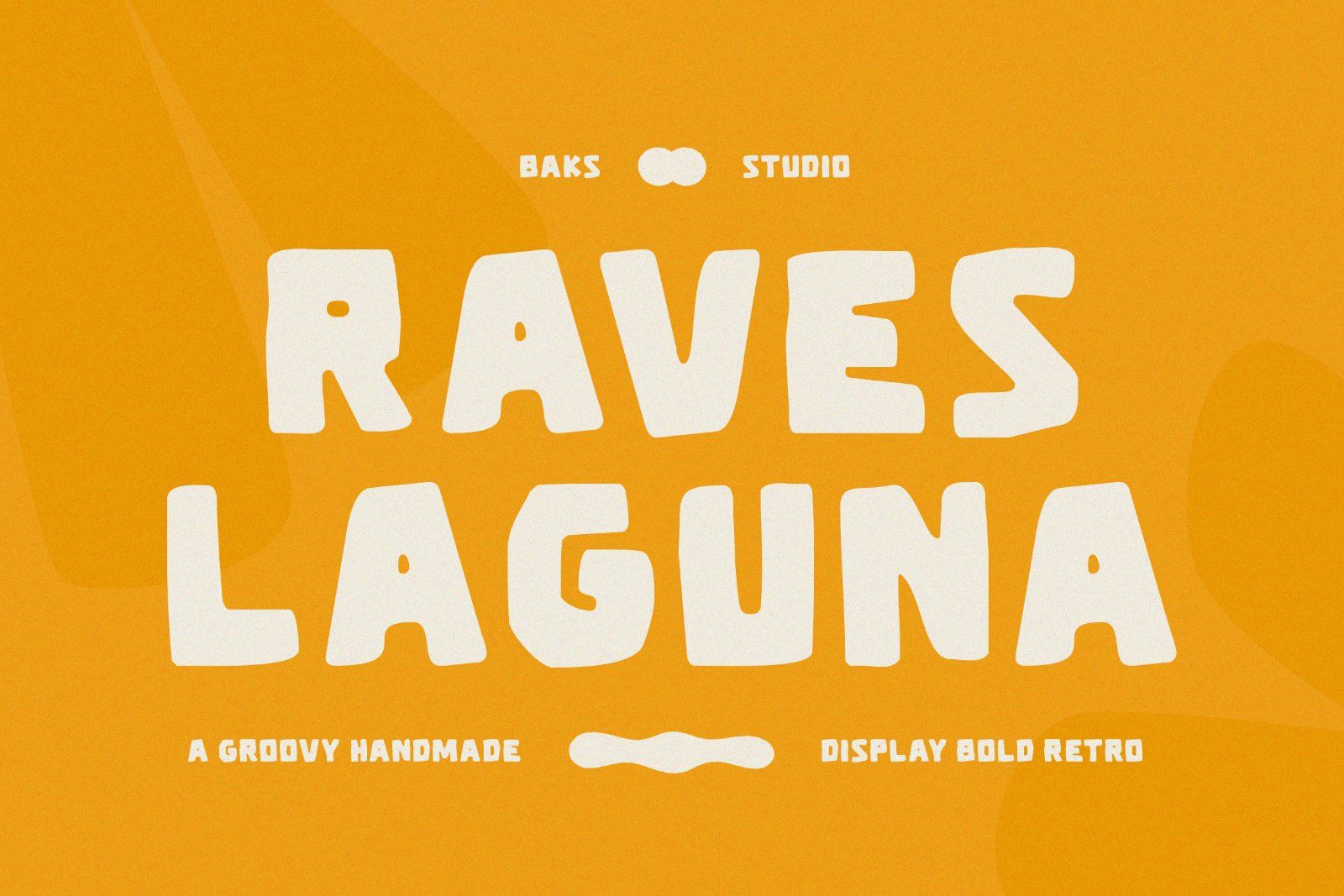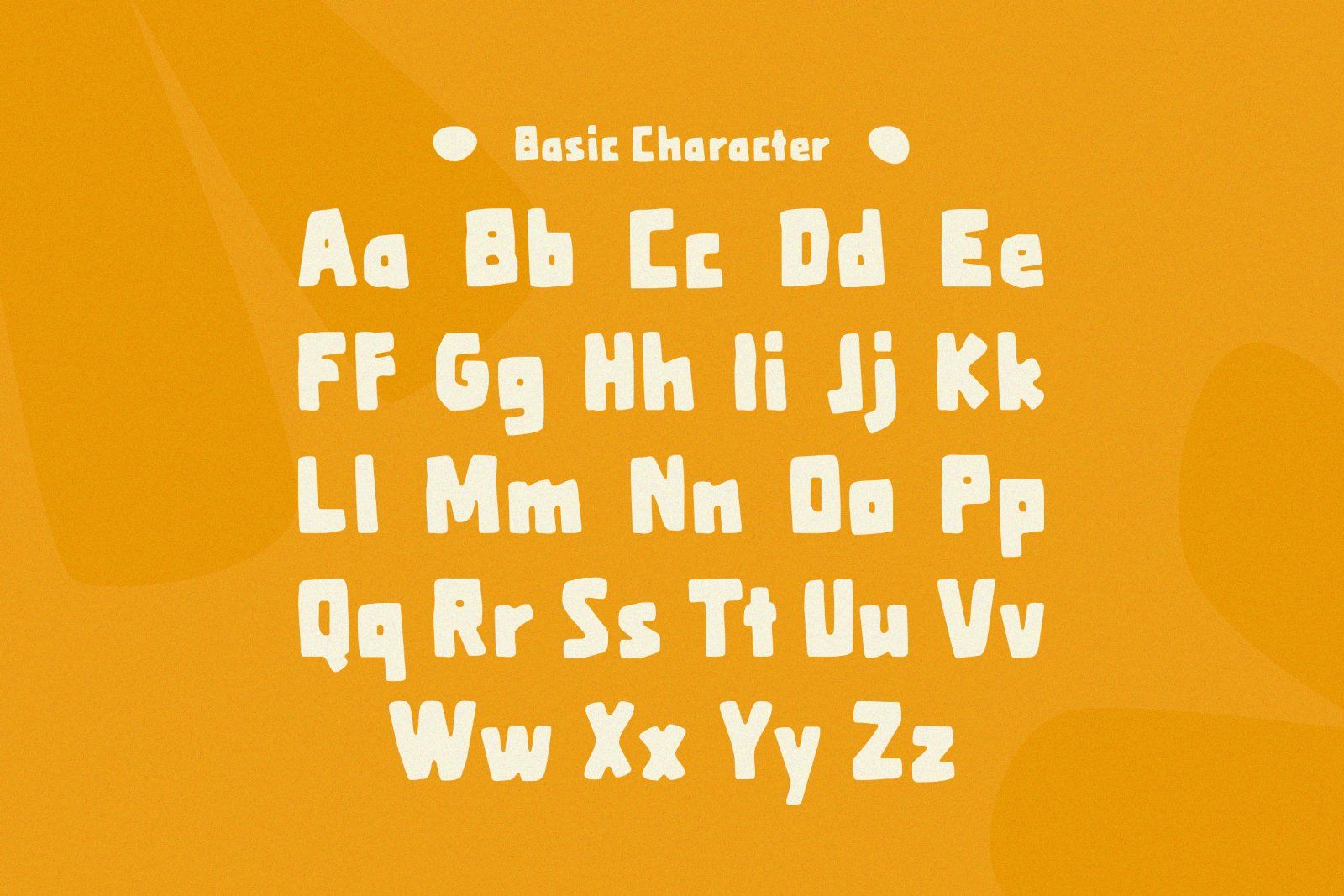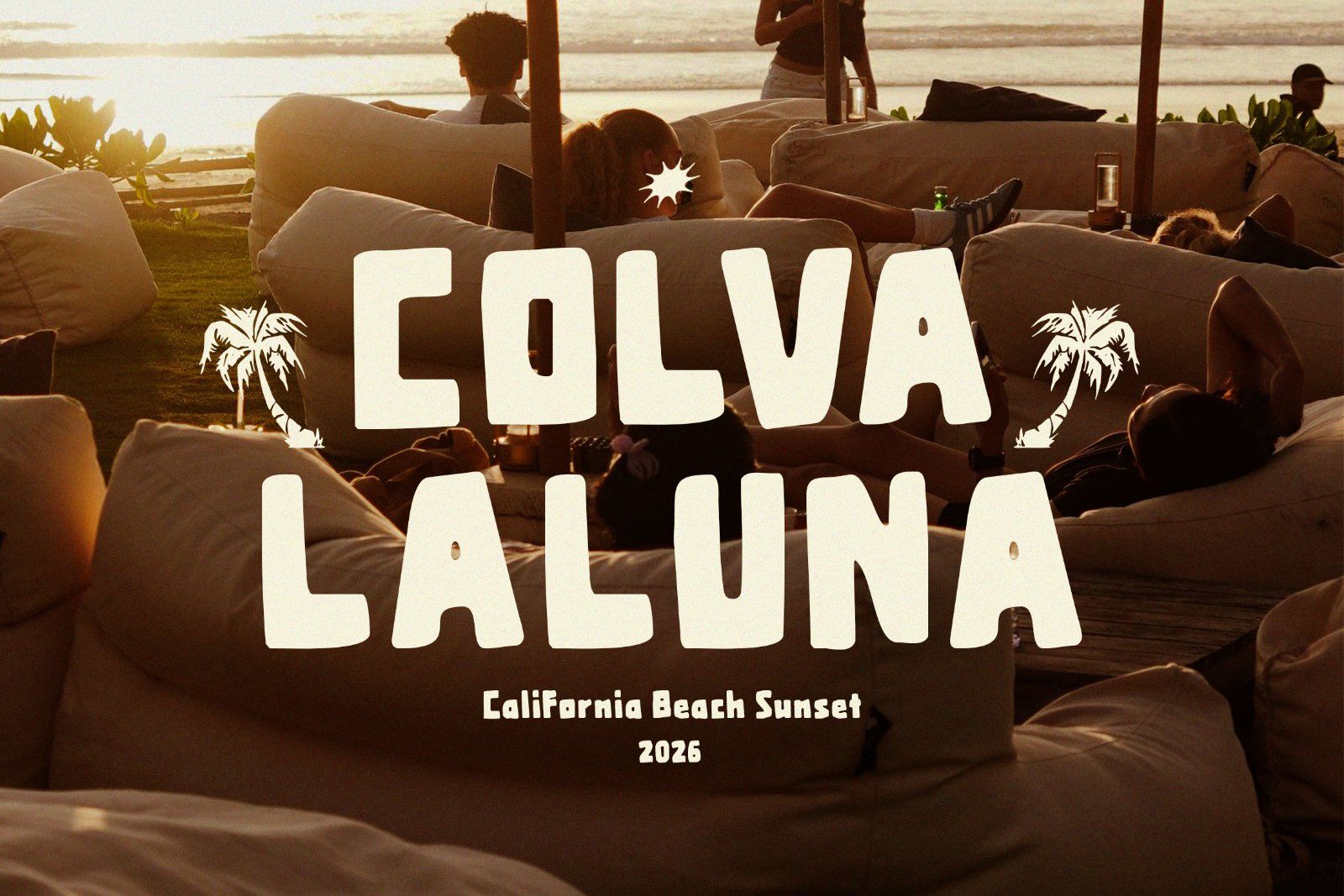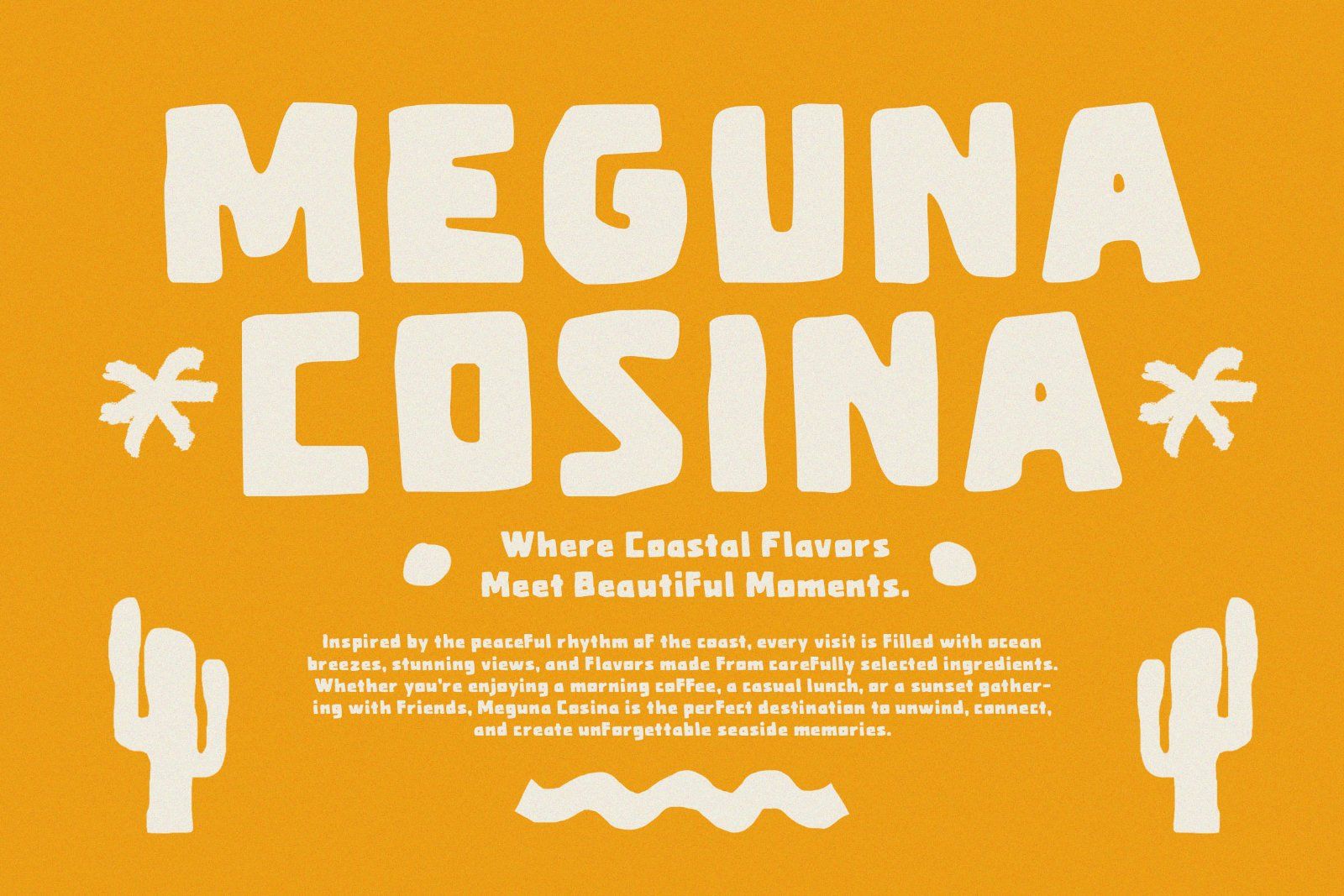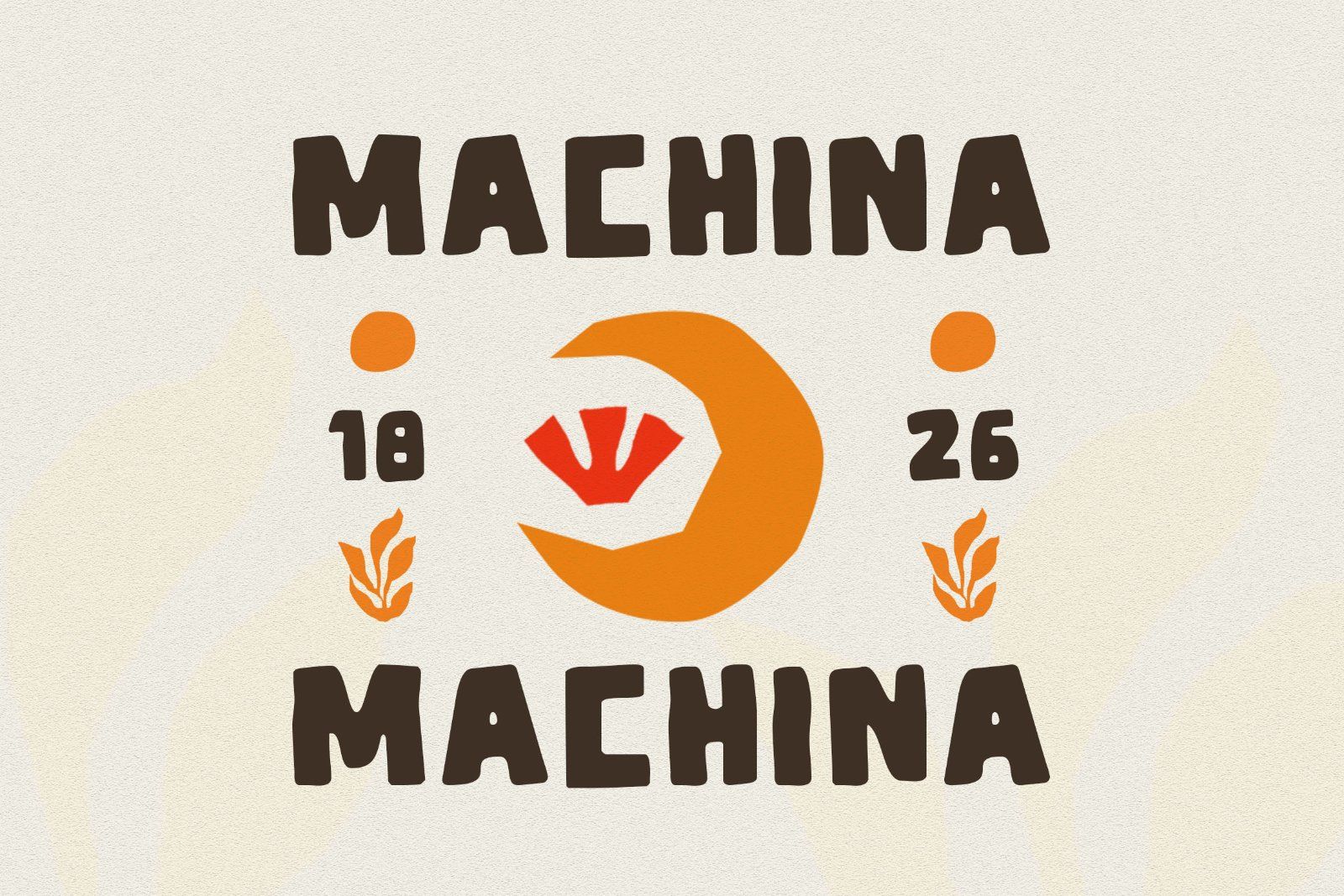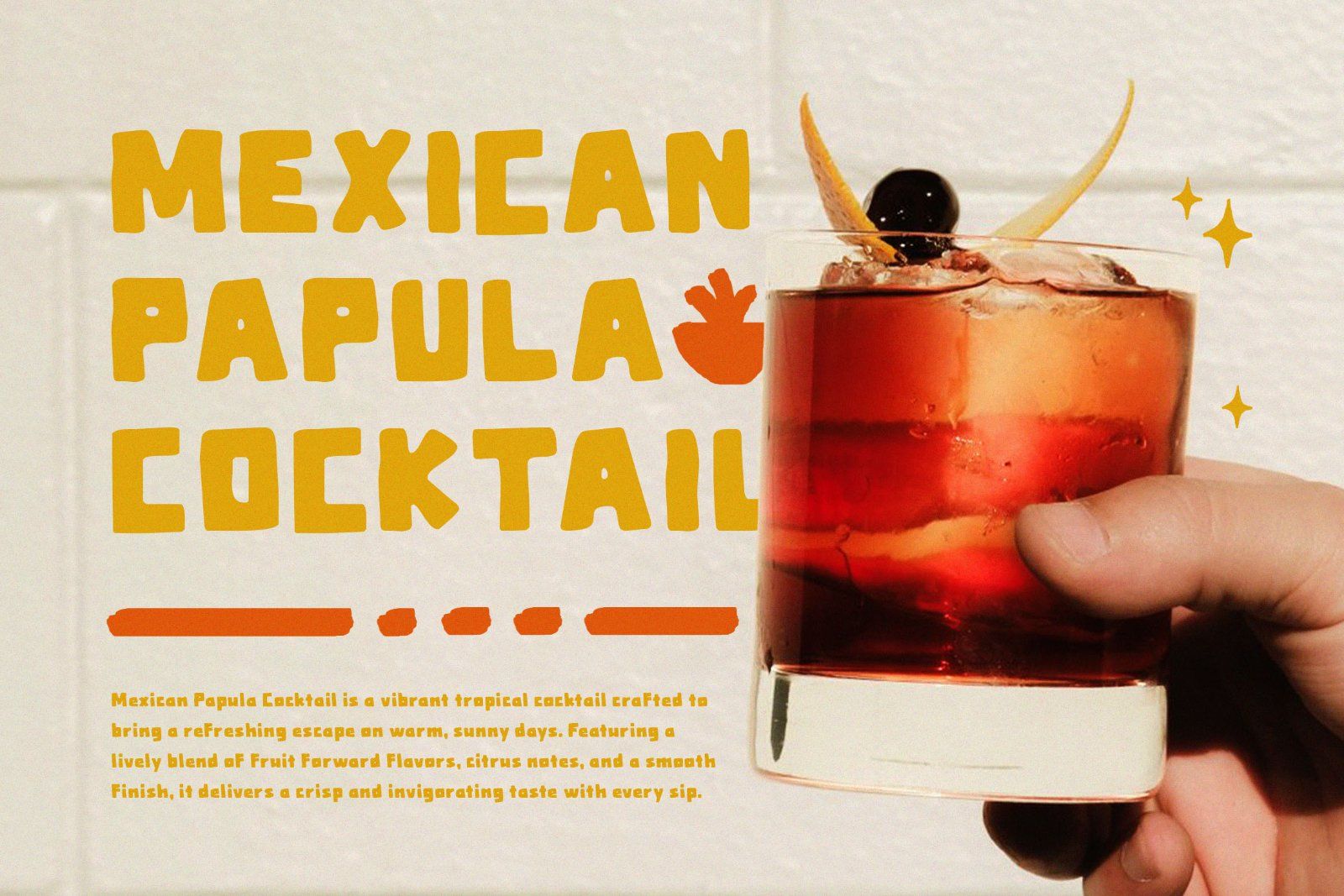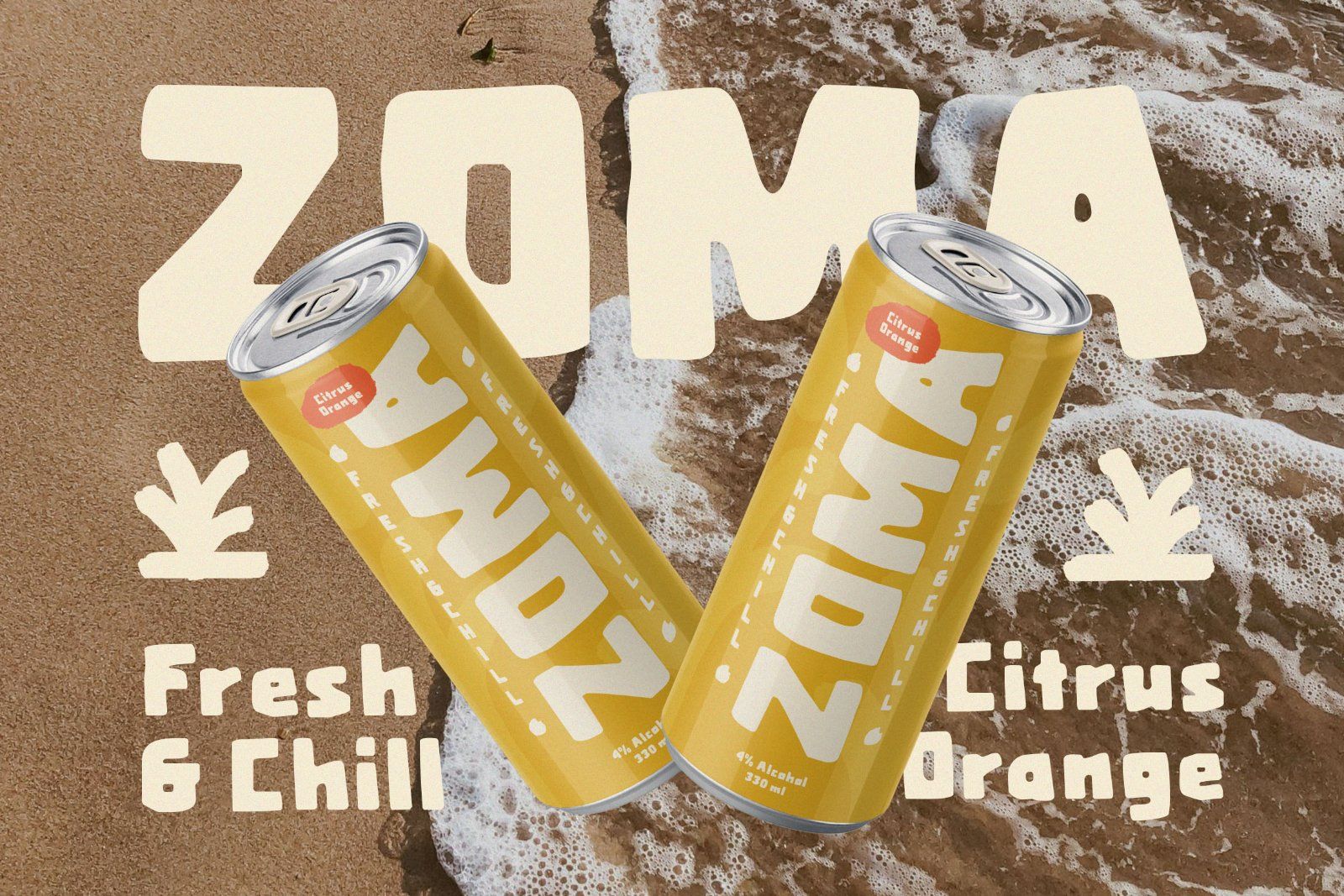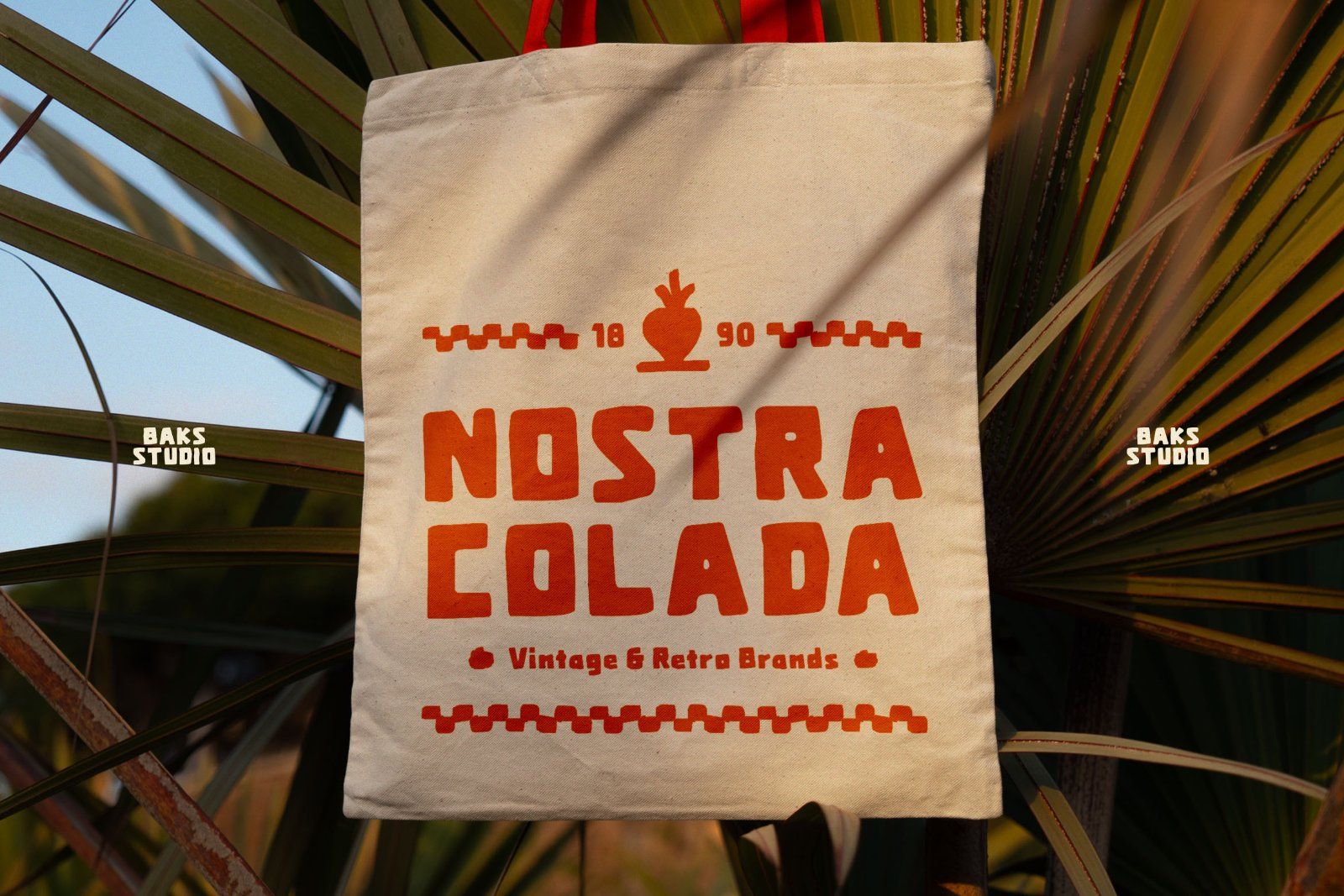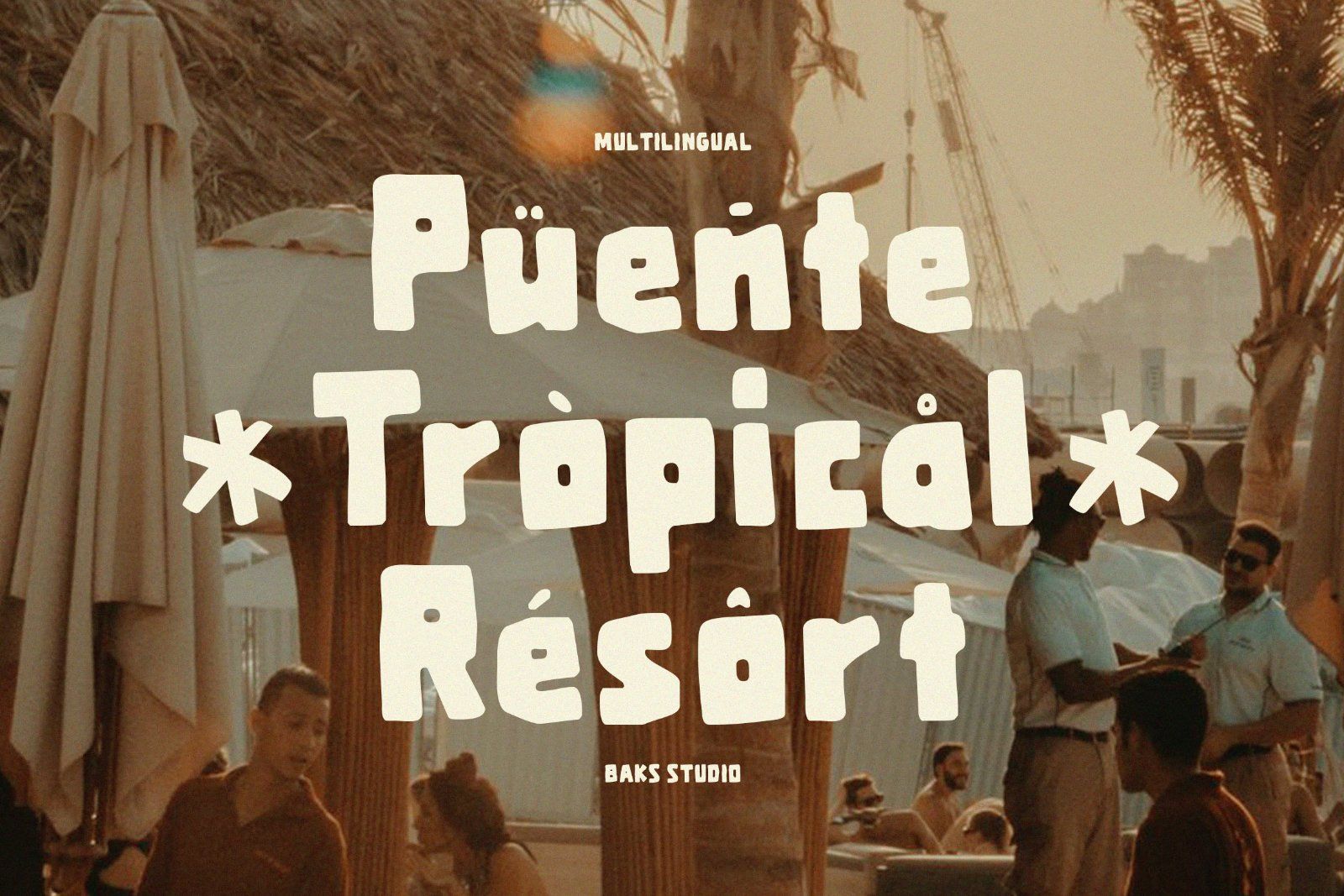
Raves Laguna — A Groovy Handmade Display Font with Bold Retro Soul
Raves Laguna is a bold, hand drawn display font that channels the juicy, bubble lettered energy of vintage rave flyers and 70s groovy signage then dresses it up for the demands of modern commercial design. Every letterform was shaped by hand, so instead of the sterile precision of a vector grid, you get soft, rounded corners, slightly imperfect curves, and thick, confident strokes that feel warm, human, and full of personality.
Whether you're building a logotype, laying out a poster, mocking up packaging, or designing a full visual identity, Raves Laguna delivers instant retro charm without feeling like a costume it's playful, punchy, and genuinely usable.
Perfect For :
• Branding & visual identities
• Logotypes & wordmarks
• Posters & flyers
• Packaging design
• Social media headlines & templates
• Mockups & product presentations
• Editorial and magazine headlines
• Café, restaurant, and lifestyle brand signage
Raves Laguna available with :
• Uppercase
• Lowercase
• Number & Punctuation